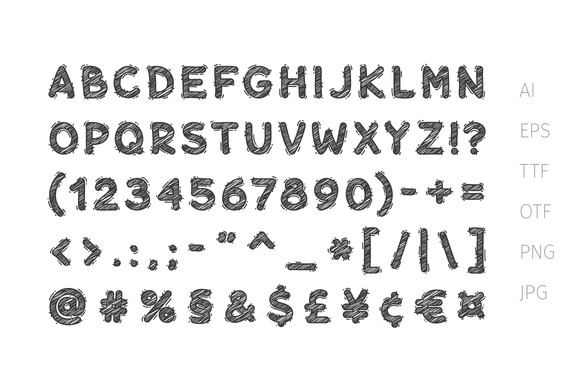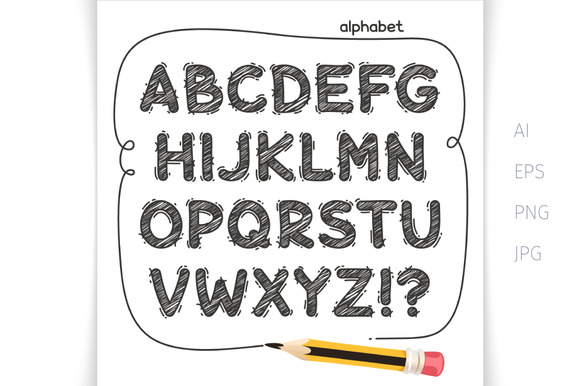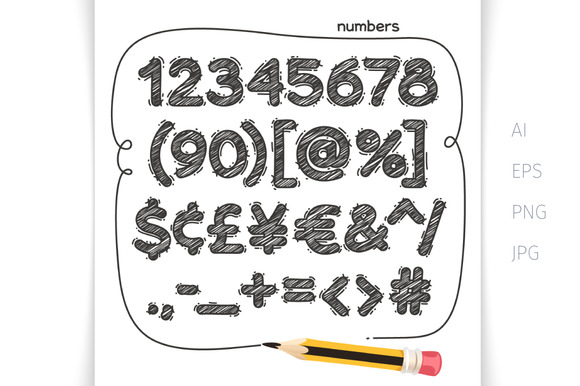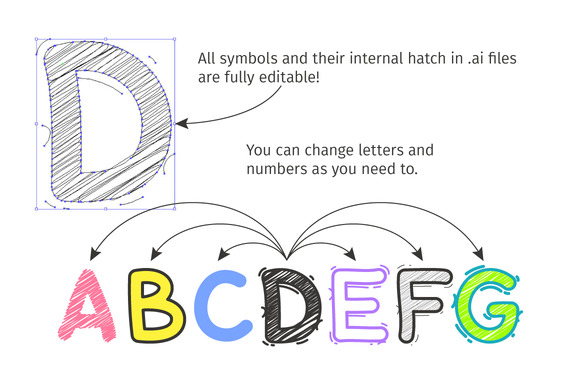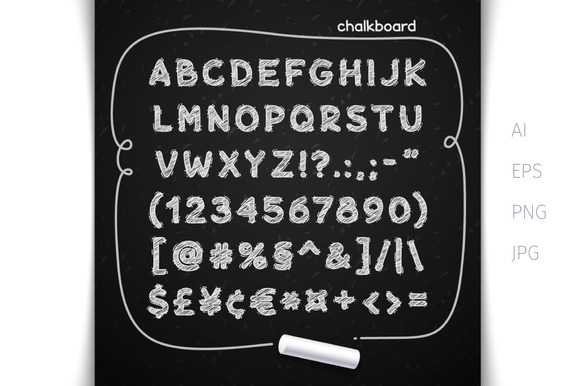
The Art of Playful Design: Introducing the Doodle Font
Do you ever find yourself doodling on a piece of paper, lost in a world of creativity and imagination? For many of us, doodling is more than just a hobby – it’s a way to express ourselves and bring our ideas to life. As designers, we’re always on the lookout for tools that can help us tap into that same sense of playfulness and creativity.
Doodle Font Key Features
- Unique Hand-Drawn Style: Doodle Font features a distinctive, hand-drawn aesthetic that adds a touch of whimsy and personality to any design.
- Customizable: The font’s hand-drawn nature allows for easy customization and modification to suit specific design needs.
- Perfect for: Doodle Font is ideal for use in creative projects, such as children’s books, educational materials, and design elements that require a playful touch.
Doodle Font Review
At first glance, Doodle Font seems like a fun and quirky addition to any design project. ✨ I love the hand-drawn feel it gives off, and the various styles available add a lot of character to text. The font is highly customizable, which is a major plus. You can adjust the stroke width, spacing, and even add custom colors to match your brand.
One of the best things about Doodle Font is its versatility. It’s perfect for creating eye-catching headlines, logos, and even entire branding systems. The font also works well for digital products, such as mobile apps and websites. ✨
- Hand-drawn feel and customization options
- Highly versatile and suitable for various design projects
- Customizable stroke width, spacing, and colors
- May not be suitable for formal or professional projects
- Can be overwhelming if used excessively
- Some characters may not be easily readable at small sizes
Overall, Doodle Font is a great addition to any designer’s toolkit. While it may not be perfect for every project, it’s a fun and creative way to add some personality to your designs. With a little restraint and creativity, Doodle Font can elevate your designs to the next level. ✨
Tips for Getting the Most Out of Doodle Font
Some tips for using Doodle Font effectively include:
- Use the doodle font in combination with other design elements, such as illustrations and graphics.
- Consider using the doodle font for headings and subheadings to add visual hierarchy to your design.
Doodle Font is commonly used in the following design applications:
- Children’s book illustrations and design.
- Watercolor textures to add a soft, dreamy effect
- Floral patterns to create a romantic and vintage feel
- Minimalist backgrounds to let the Doodle Font elements take center stage
- Colorful illustrations to bring learning concepts to life
- Grid systems to create a structured and organized layout
- Photographs to add a touch of realism and authenticity
Alternatives to Doodle Font for Designers
Comic Sans MS is a sans-serif font that is often used in informal and playful contexts. It’s a good alternative to Doodle Font when you need a friendly and approachable feel, but want a more traditional font that’s not as whimsical. Comic Sans MS is widely available on most devices and is easy to read, making it a good choice for body text.
Comparison to Doodle Font: While Doodle Font is more elaborate and artistic, Comic Sans MS is more straightforward and simple. However, both fonts share a similar playful and approachable feel.